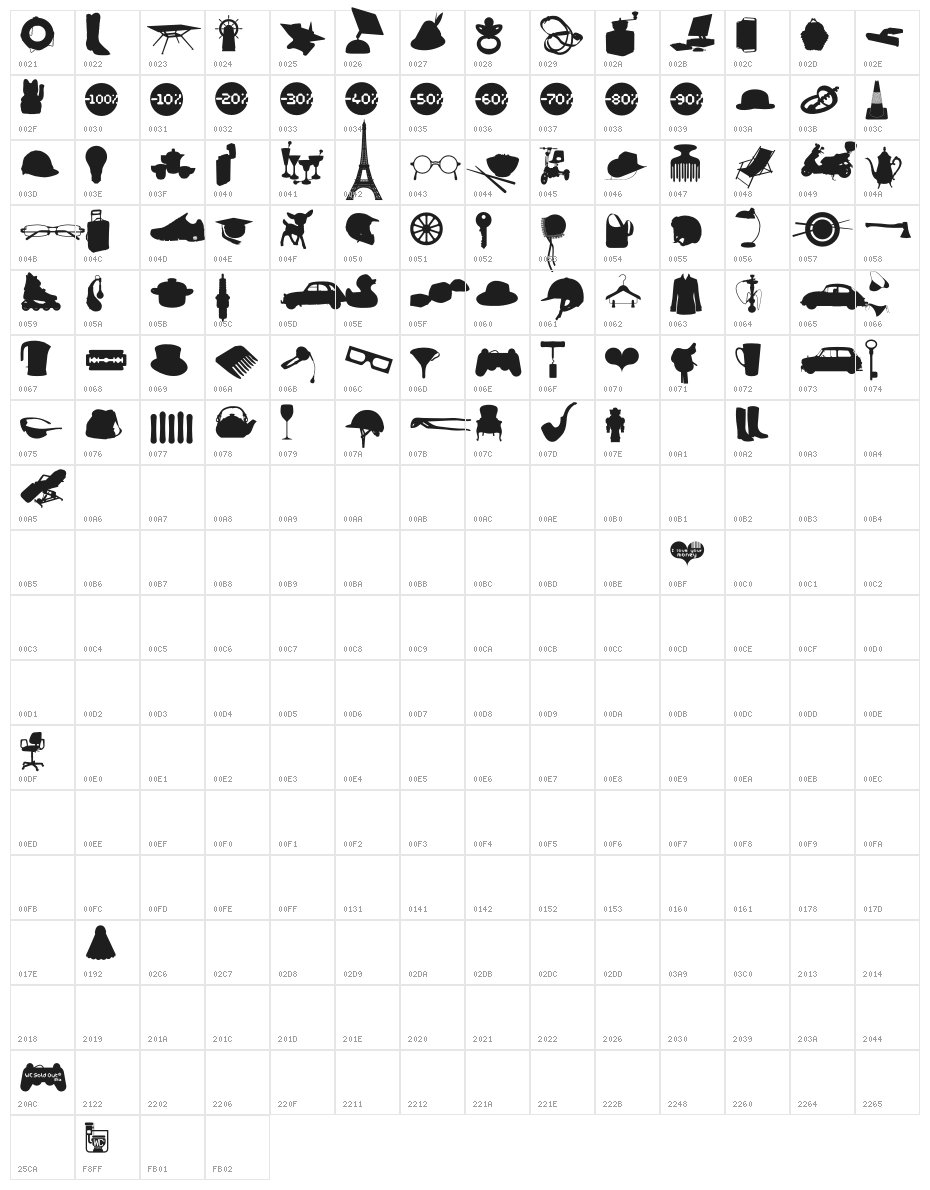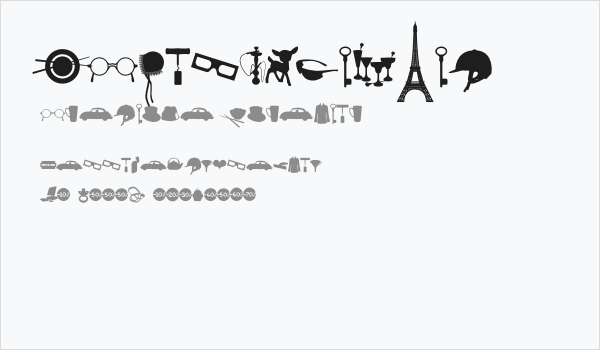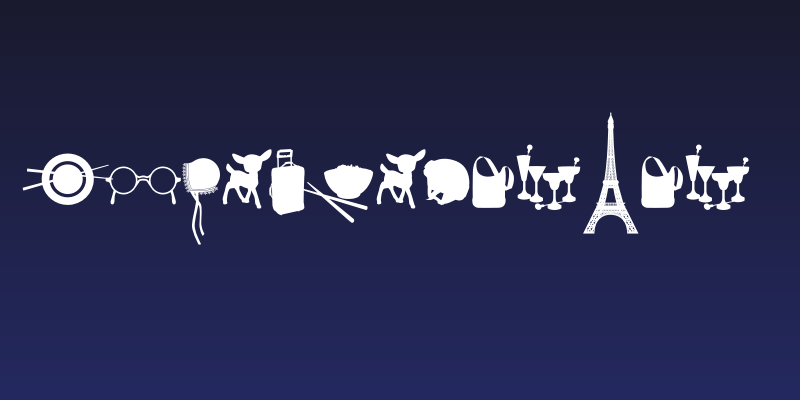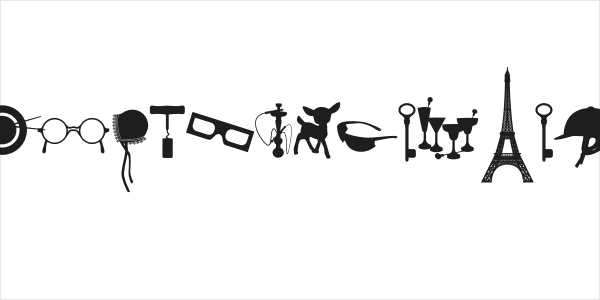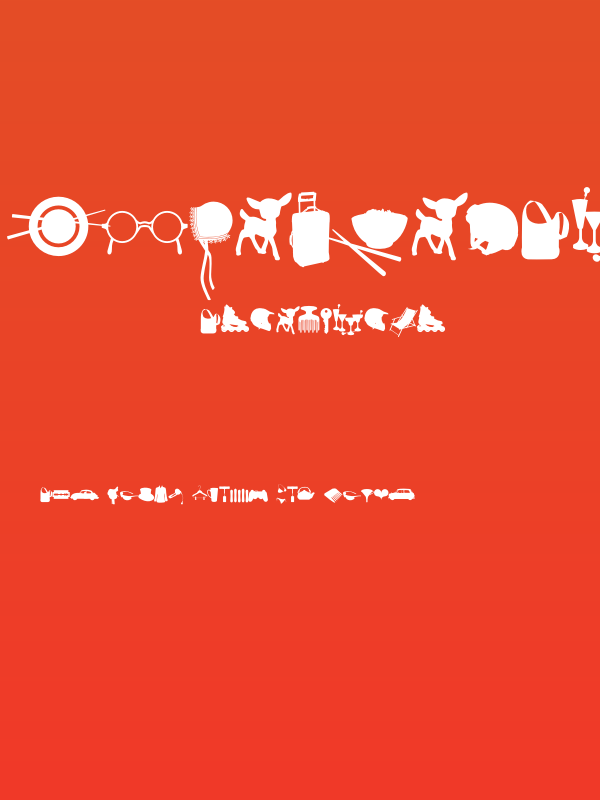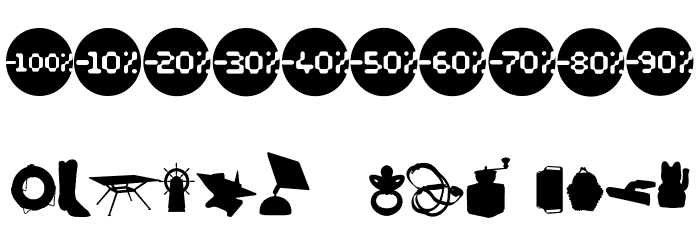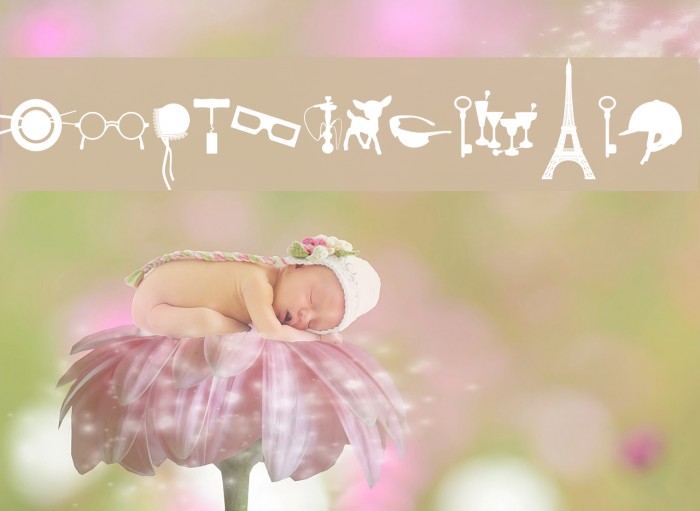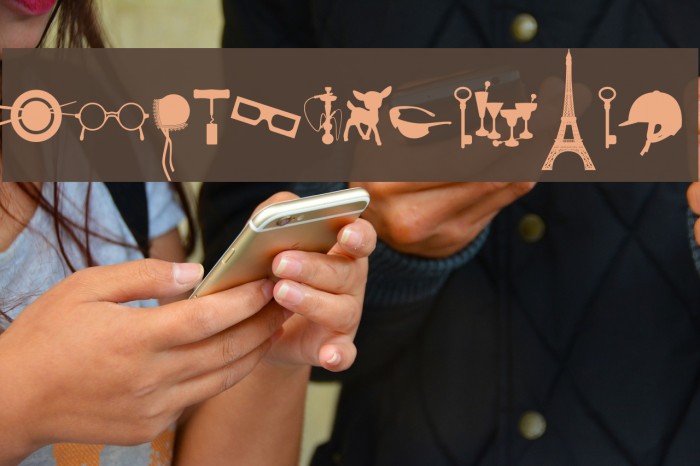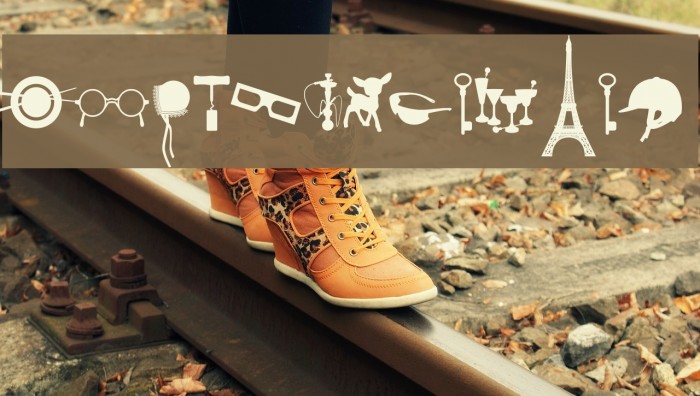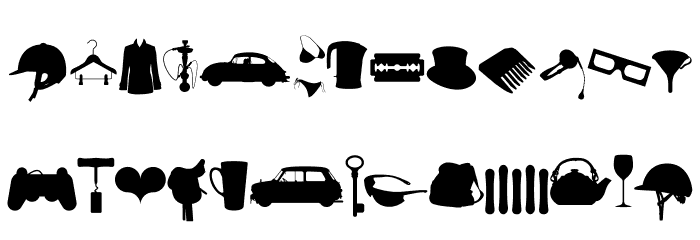
WCSoldOutABta Font
WCSoldOutABta Description
A decorative dingbat font featuring a wide variety of solid black silhouettes representing objects, vehicles, accessories, and symbols. Each character is replaced by a unique pictogram, making it suitable for visual communication or thematic design elements rather than traditional text.
| Use Case | Icons, visual accents, thematic graphics, non-textual communication. |
| Proposed Projects | Event posters, infographics, educational materials, themed invitations, visual signage, playful branding. |